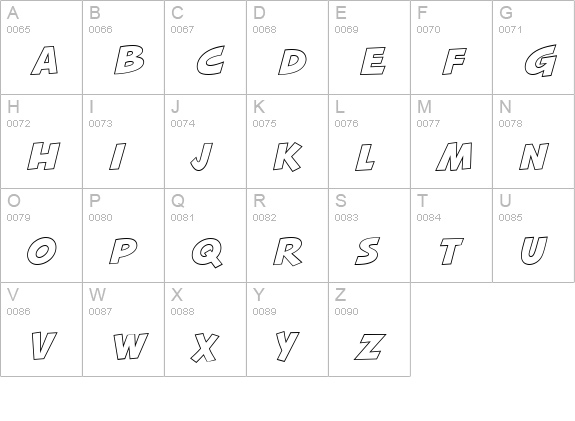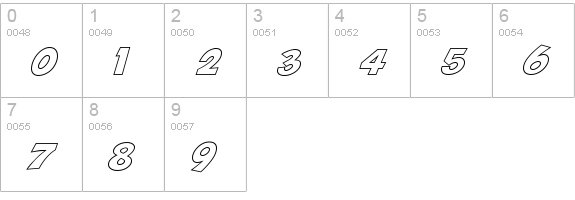
Squash MN Outline Font Details
Squash MN Outline font is a modern and stylish typeface that exudes sophistication and elegance. Its sleek and clean lines make it perfect for a wide range of design projects, from branding to editorial design. The outline style adds a unique touch to any text, making it stand out and draw attention. The versatility of Squash MN Outline font allows it to be used in a variety of contexts, whether it's for a logo, a poster, or a website. What's even better is that Squash MN Outline font is available for free download at FontsMarket.com. This means you can easily access this high-quality font without any cost, making it a fantastic choice for designers looking to elevate their work without breaking the bank. Don't miss out on this opportunity to add Squash MN Outline font to your font library and create stunning designs effortlessly.